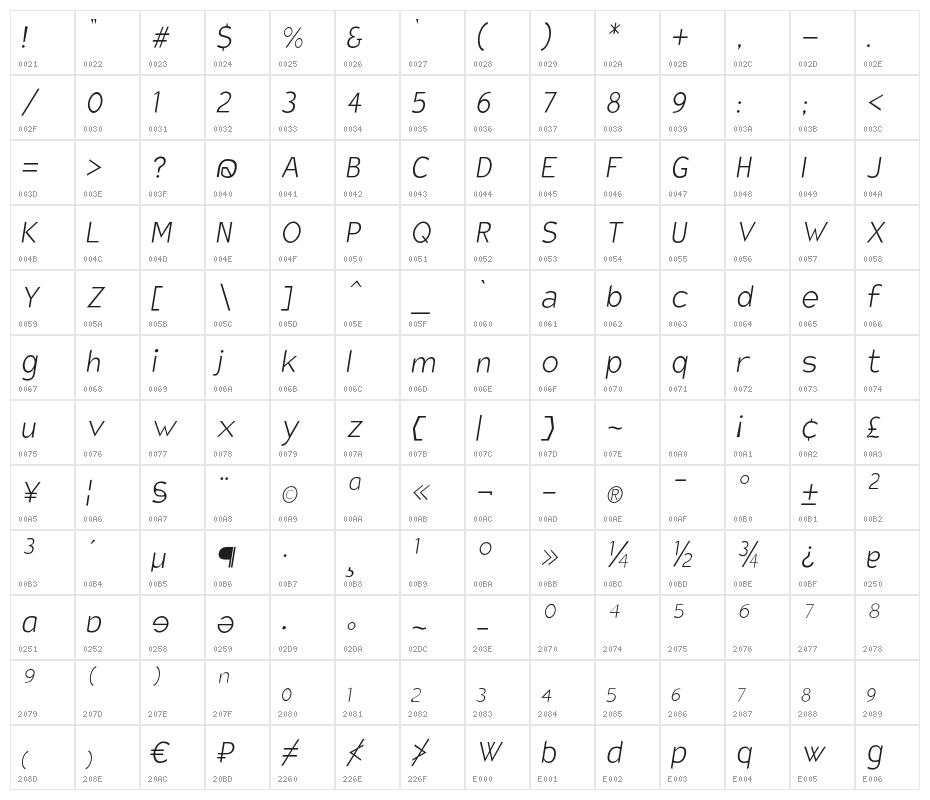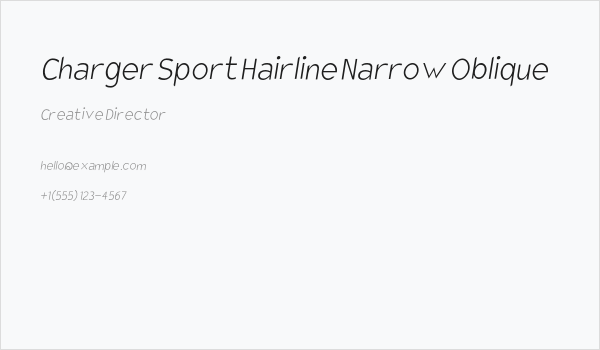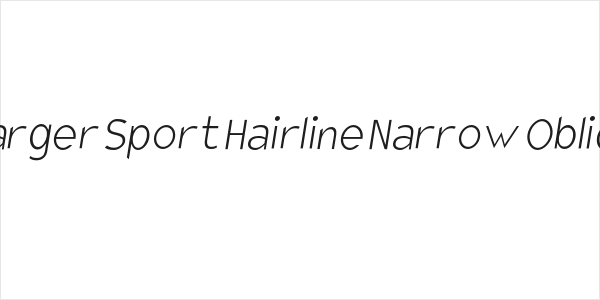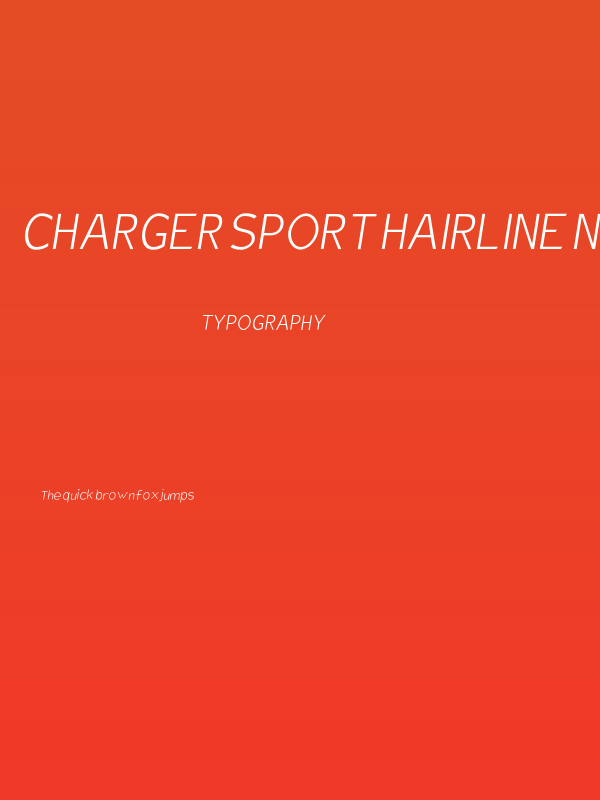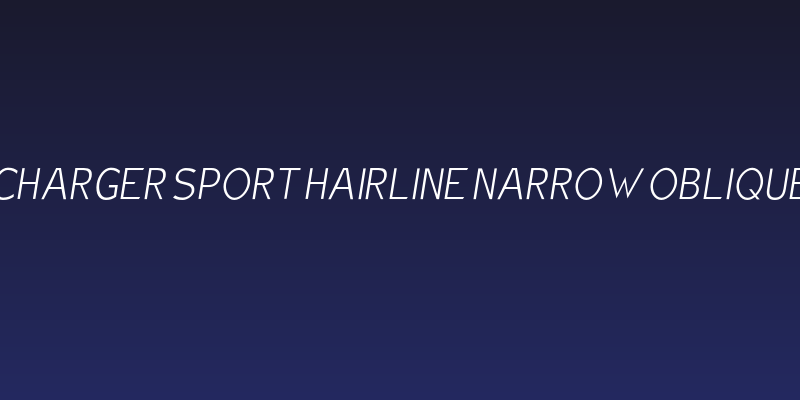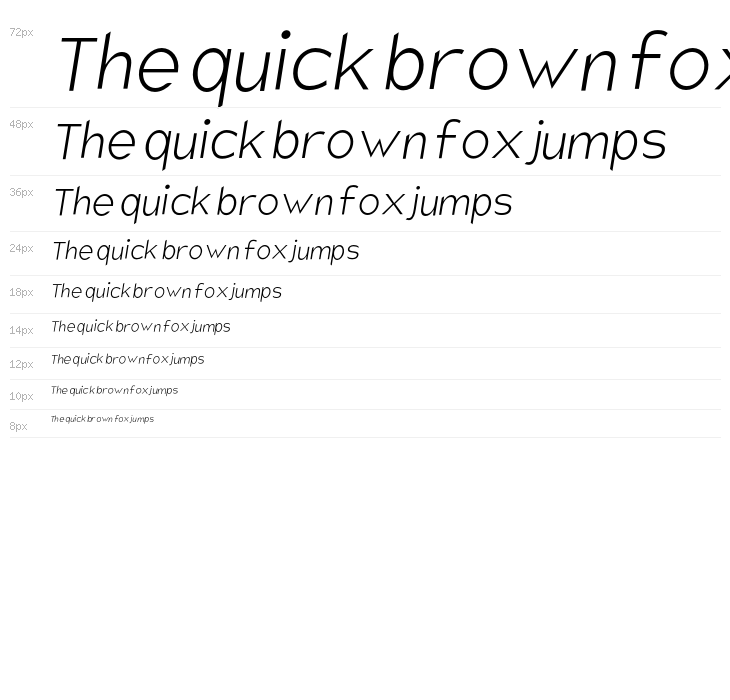
Charger Sport Hairline Narrow Oblique Font
Charger Sport Hairline Narrow Oblique Description
This font features a sleek and modern design with a narrow and oblique style. The characters are thin, giving it a hairline appearance that enhances its elegant and sophisticated look. The uppercase and lowercase letters maintain a consistent slant, contributing to a dynamic and sporty feel. The numbers and special characters are designed with the same oblique and narrow characteristics, ensuring uniformity across all glyphs. Its minimalistic and clean lines make it suitable for contemporary design projects where a subtle yet impactful typeface is desired.
Proposed ProjectsIdeal for sports branding, modern advertising, sleek editorial layouts, and dynamic web design.